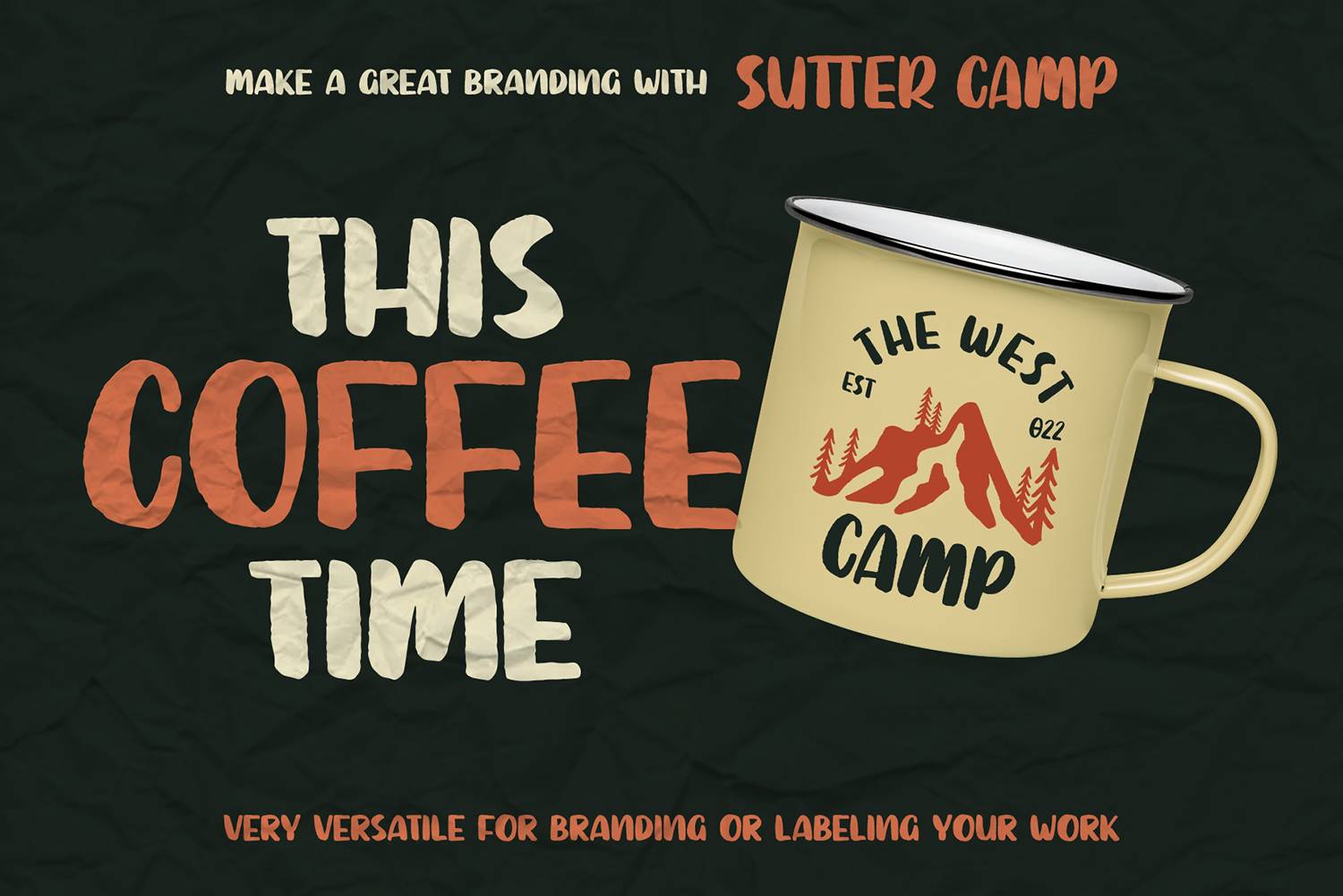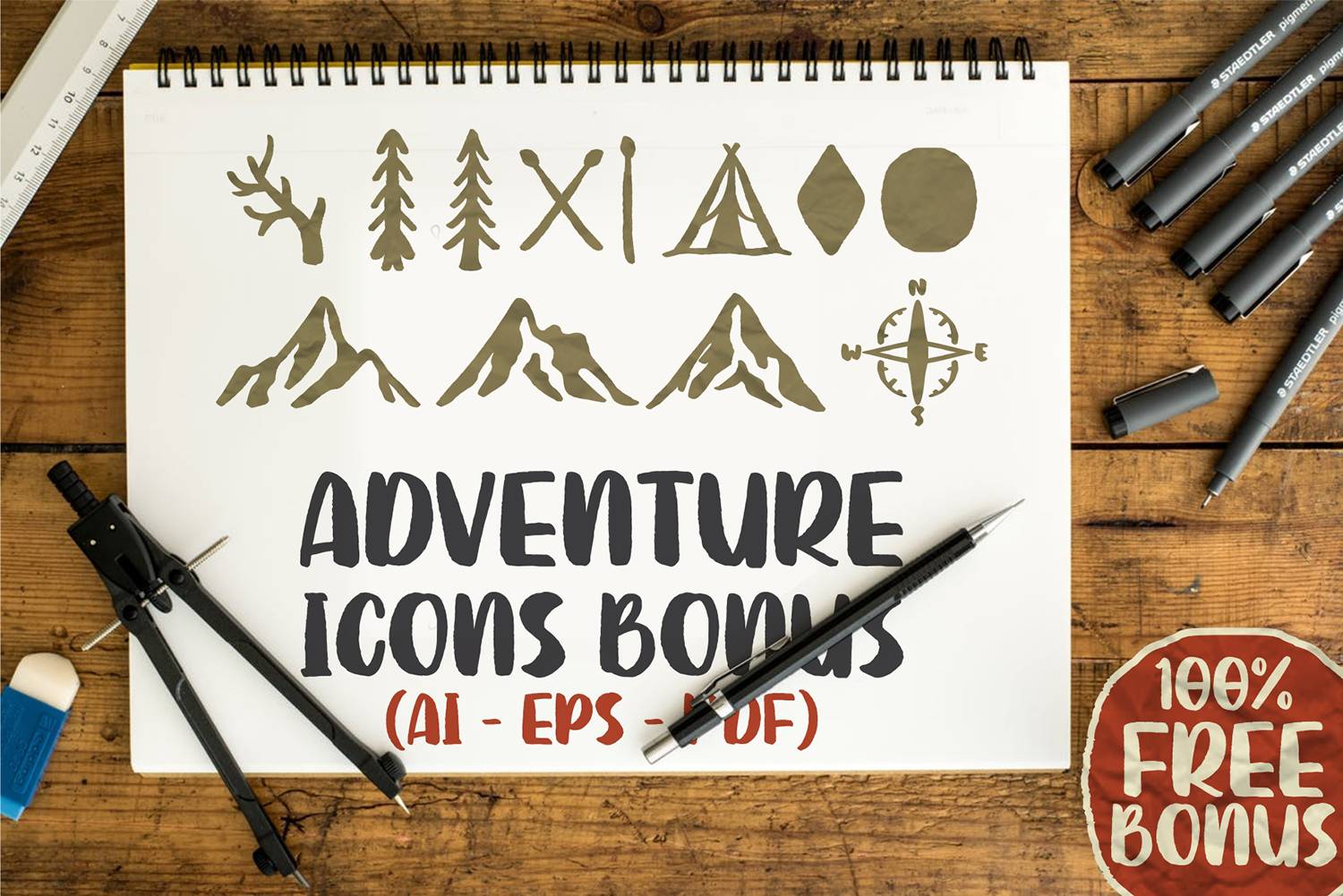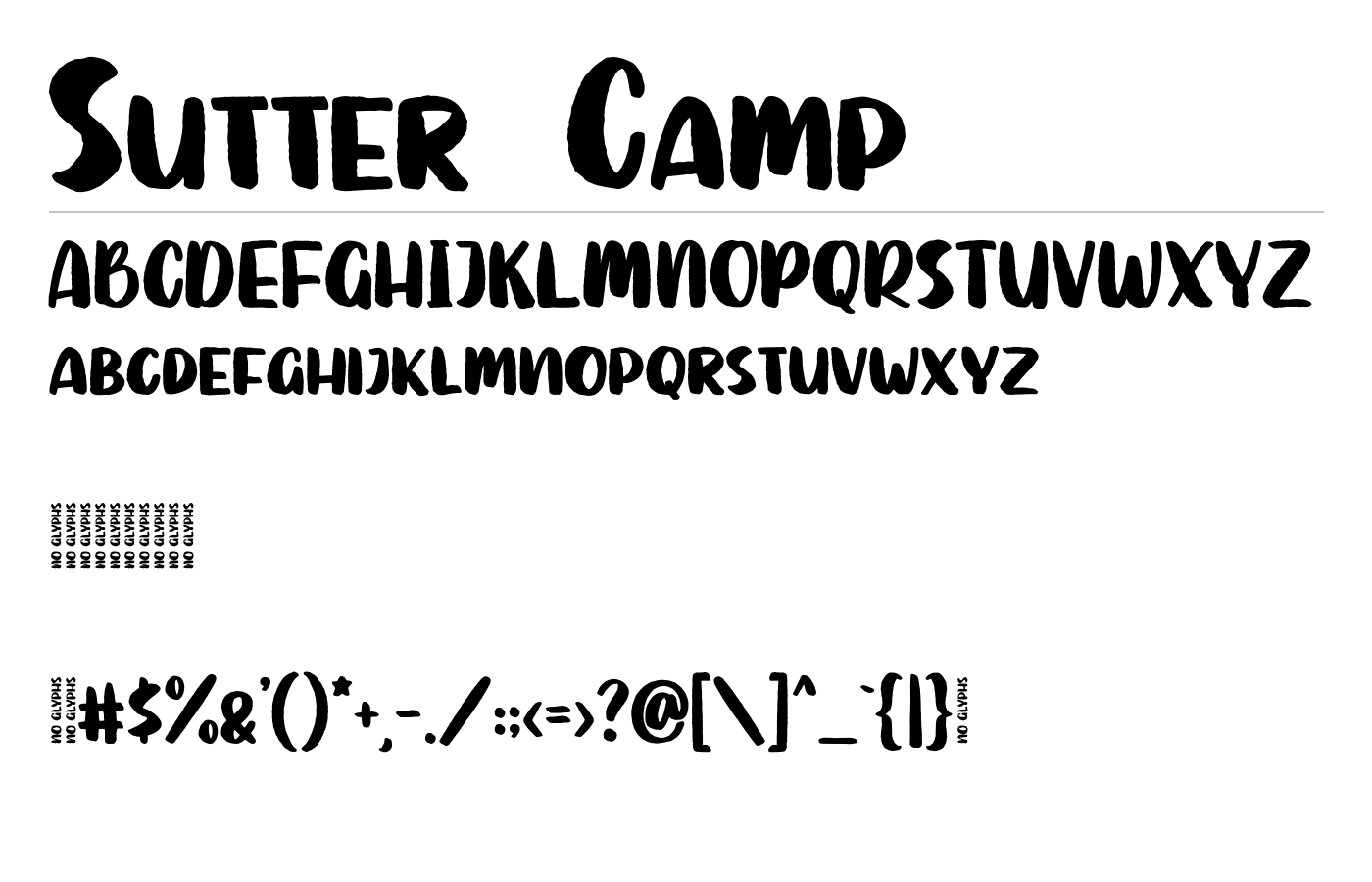
Sutter Camp is a bold, hand-drawn sans serif font with an informal, playful character that feels lively and approachable. Its irregular strokes and slightly condensed letterforms give it a rustic, handcrafted vibe perfect for casual branding, outdoor-themed projects, or creative headlines that need a friendly, energetic touch. This font works well where a personal, fun style is desired, such as posters, logos, or packaging for lifestyle and adventure brands.
Sutter Camp Font
About Sutter Camp Font
| Font family | Sutter Camp Font |